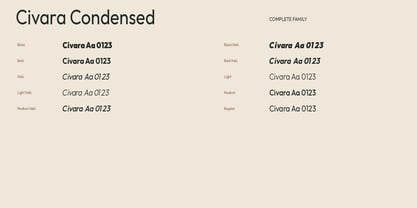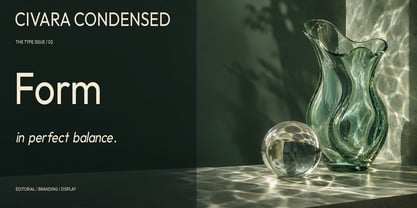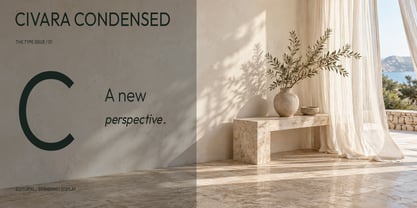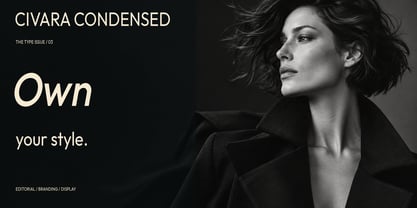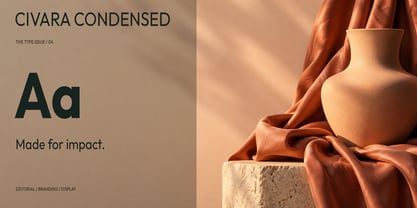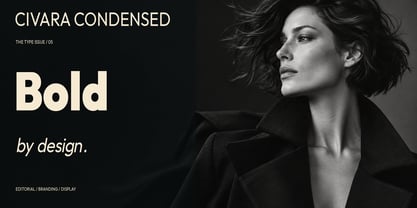
Civara Condensed
The Civara Condensed Font Family was designed by Mehmet Dogan and published by MD-Type. Civara Condensed contains 10 styles and family package options. More about this family
Civara Condensed is the compact companion to the Civara typeface family. It includes 10 styles, ranging from Light to Black with matching italics.
Its narrow proportions help designers create strong headlines and expressive layouts while using less horizontal space. Civara Condensed combines clean geometric construction with a contemporary editorial character, making it suitable for magazine covers, posters, packaging, branding and advertising.
MYDigitaLabs is an independent type foundry and digital design studio founded by Mehmet Yılmaz Doğan. This studio specializes in creating distinctive display typefaces that blend strong visual character with practical design applications. Drawing inspiration from historical lettering, Nordic and medieval forms, carved symbols, cinematic storytelling, and contemporary graphic design, each typeface is meticulously crafted with a focus on silhouette, proportions, spacing, rhythm, and readability. MYDigiLabs emphasizes expressive font families suitable for a variety of uses, including titles, posters, branding, packaging, book covers, games, apparel, and visual identities. The studio's mission is to transform cultural references and atmospheric ideas into memorable typefaces that resonate with modern designers. Each font family is developed with a clear visual concept and offers a range of styles, enabling designers to create both subtle and impactful compositions.